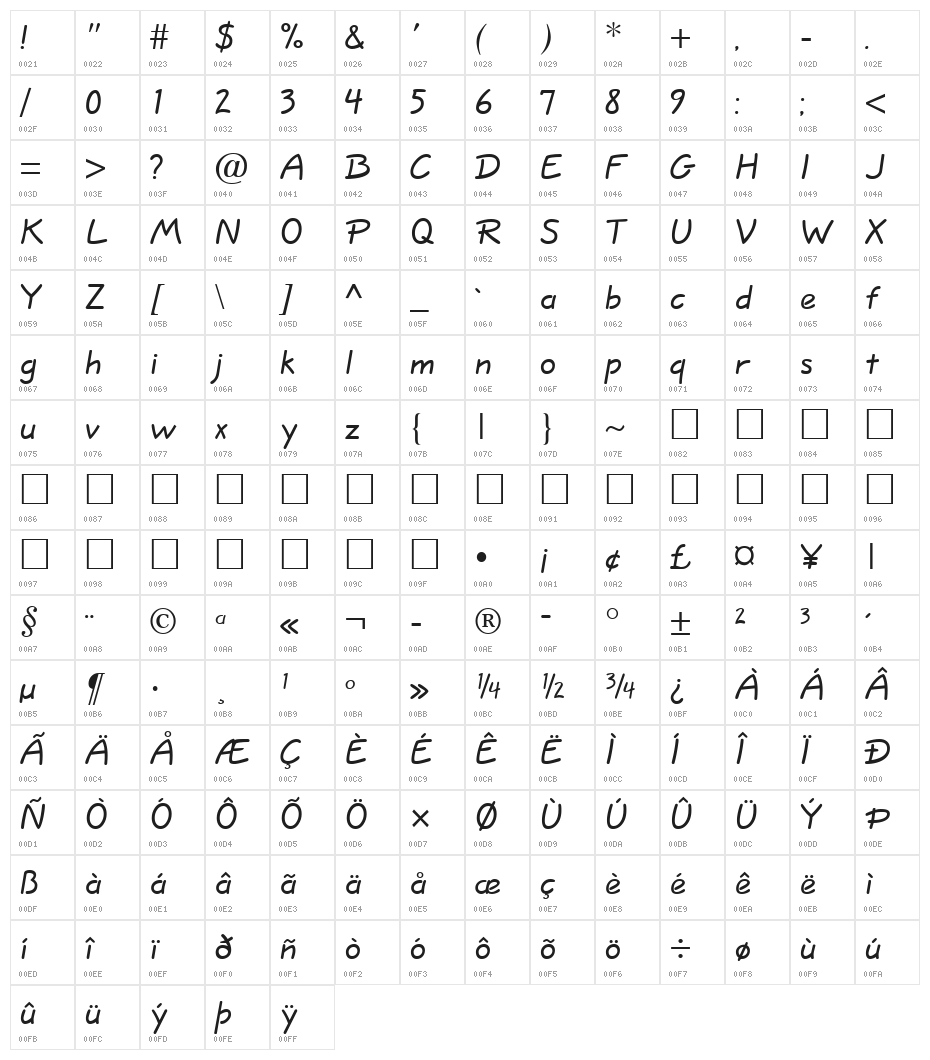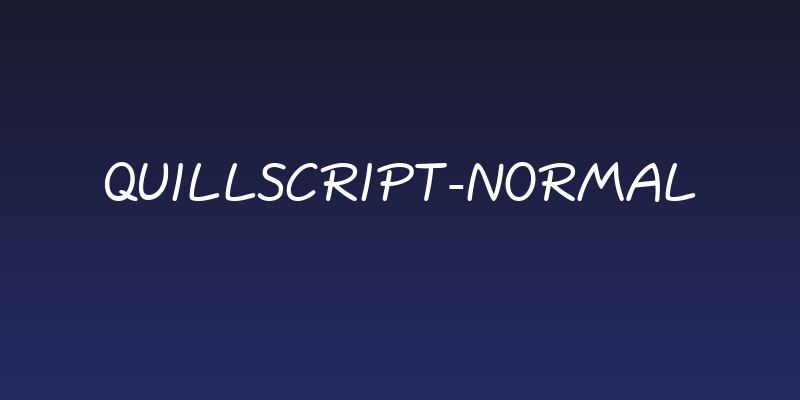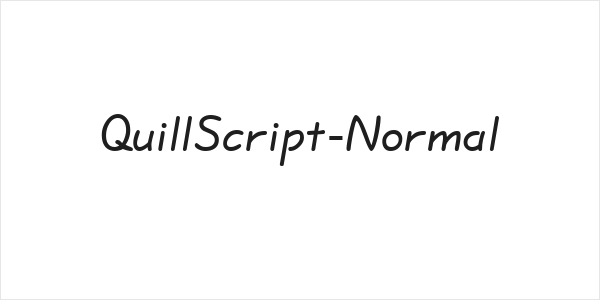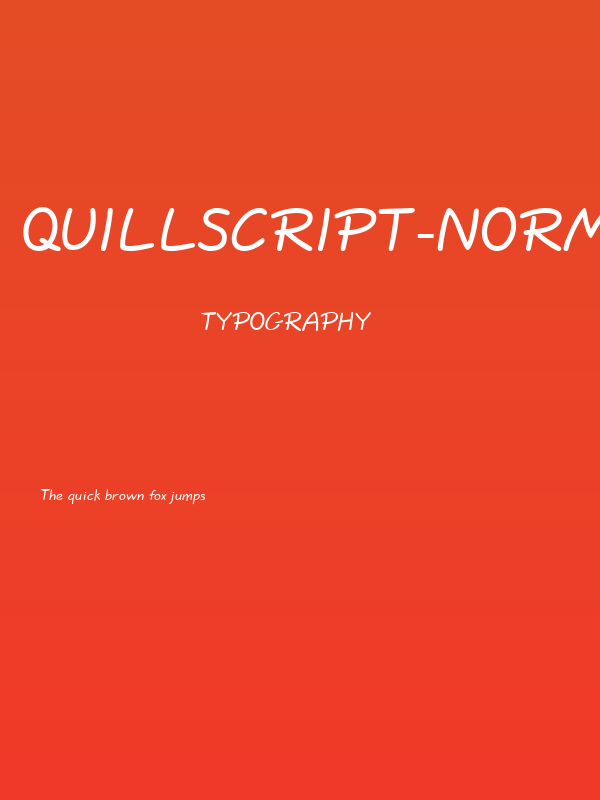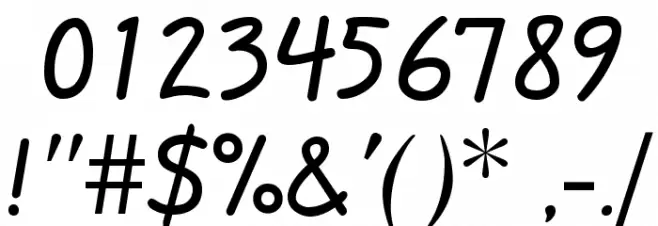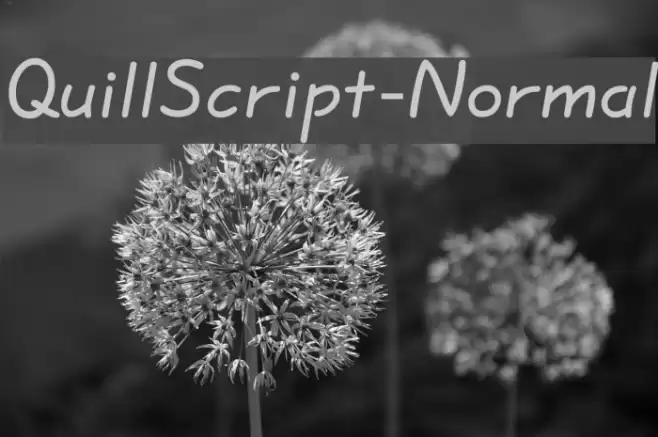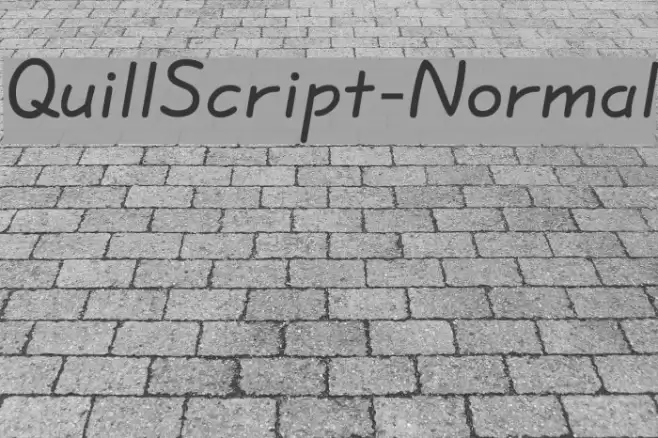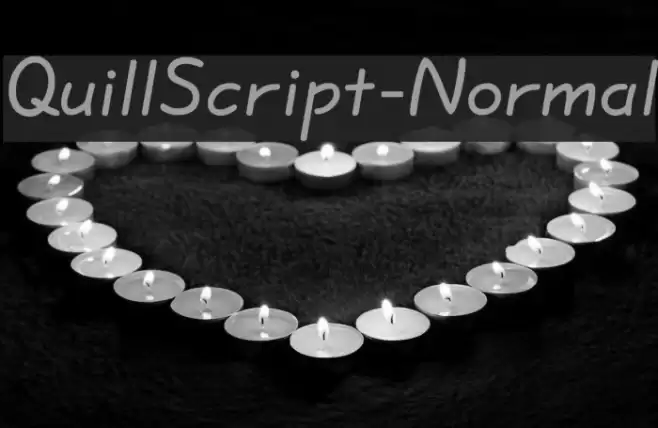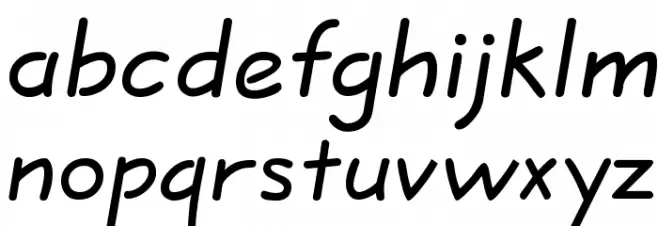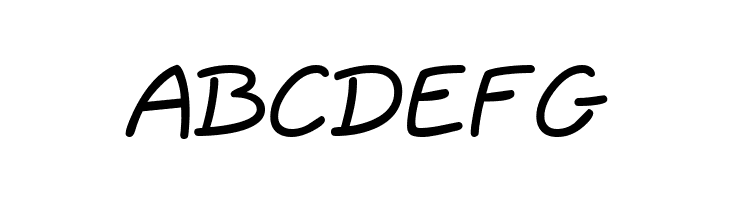
QuillScript-Normal Font
QuillScript-Normal Description
This font features a smooth, flowing script style that mimics the fluidity of handwriting. The characters are slightly slanted, adding a dynamic and elegant touch to the text. The uppercase letters are bold and prominent, while the lowercase letters maintain a consistent flow, making it ideal for creating a personal and approachable feel. The numbers and special characters are designed to match the overall script style, ensuring a cohesive look across all text elements. The font's design is both modern and timeless, suitable for a variety of applications.
| Use Case | Logos, Invitations, Personal Branding |
| Proposed Projects | Ideal for wedding invitations, greeting cards, personal branding, and creative projects requiring a personal touch. |